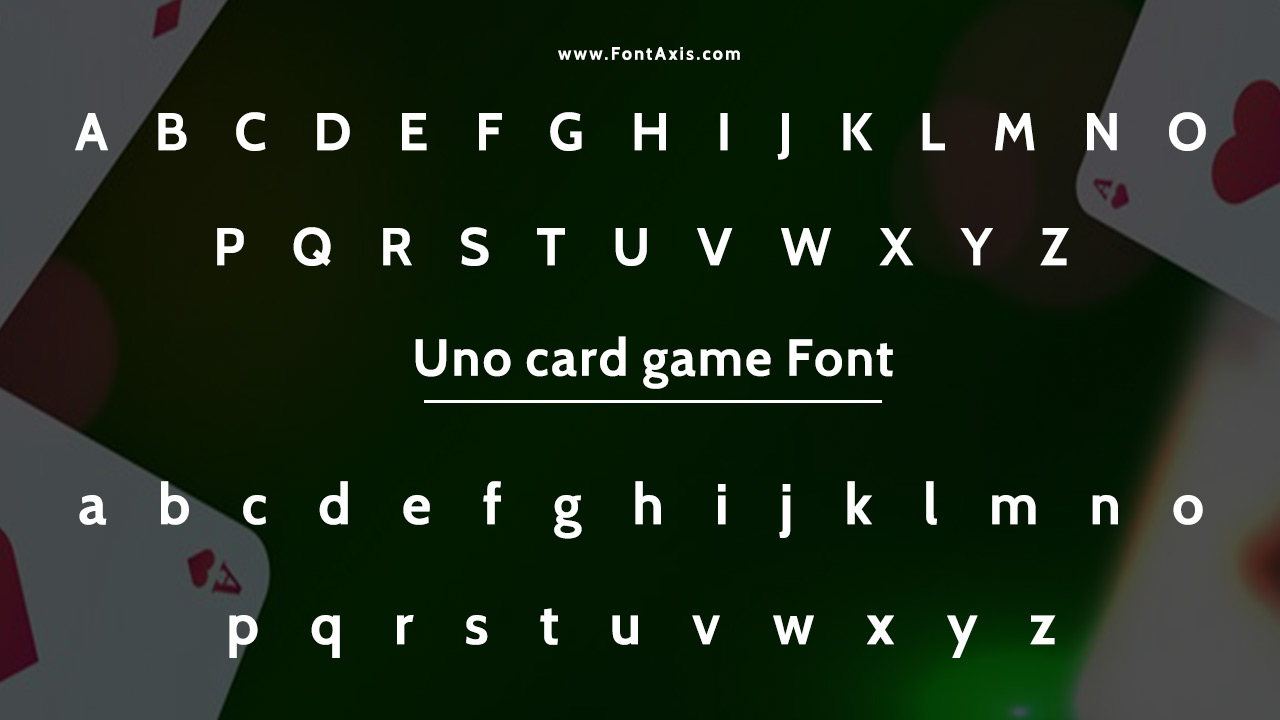
Uno Card Game Font: A Stylish Typeface For Branding And Design
The Uno Card Game Font is a modern and versatile typeface used primarily in the branding and design of the iconic Uno card game by Mattel.
It has evolved into a recognizable design style, making it a popular choice for logos, posters, and other marketing graphics. The closest fonts used for the Uno logo are Arial Bold and Cabin Bold, both offering clean, modern looks that make them suitable for the game’s identity and promotion across various mediums.
Uno Card Game Font
• Arial Bold
• Cabin Bold
• Cabin Condensed
• Helvetica Neue 97 Black Condensed Oblique
Where Uno Card Game Font Is In Use
• Uno logo and branding materials
• Uno playing cards (for number and symbol display)
• Game graphics and posters promoting events
• Website design for Uno or Mattel-related pages
• Board game packaging and marketing materials
• Banners and event flyers
• Branding for special Uno-themed events or tournaments
• Promotional materials such as logos and signage
• Graphics for digital platforms like Pinterest and Instagram
• Cards for game-related templates and designs
• Cabin Bold + Roboto: Great for modern designs, combining clean lines with a minimalist approach.
• Arial Bold + Lato: Suitable for professional branding with a friendly, accessible tone.
• Helvetica Neue Condensed + Open Sans: Ideal for digital interfaces, offering readability and a contemporary vibe.
The Uno Card Game Font is a key element in the visual identity of the iconic game. Whether for creating striking logos, marketing materials, or game cards, this modern sans-serif font provides a clean, bold look that aligns with the brand’s playful and recognizable style.
By incorporating fonts like Cabin Bold and Arial Bold, designers can achieve a similar aesthetic that works well across both print and digital platforms. With its versatile features and accessibility, the Uno Card Game Font continues to be an essential tool for creating memorable and effective designs.
1.What Is The Uno Card Game Font Used For?
The Uno Card Game Font is used for branding, game graphics, playing cards, logos, posters, and advertising materials related to Uno, often featuring bold and clean lines.
3.What Makes The Cabin Bold Font Similar To The Uno Logo Font?
Cabin Bold features a clean, modern sans-serif style with similar proportions and condensed design, making it a great match for the Uno logo style.